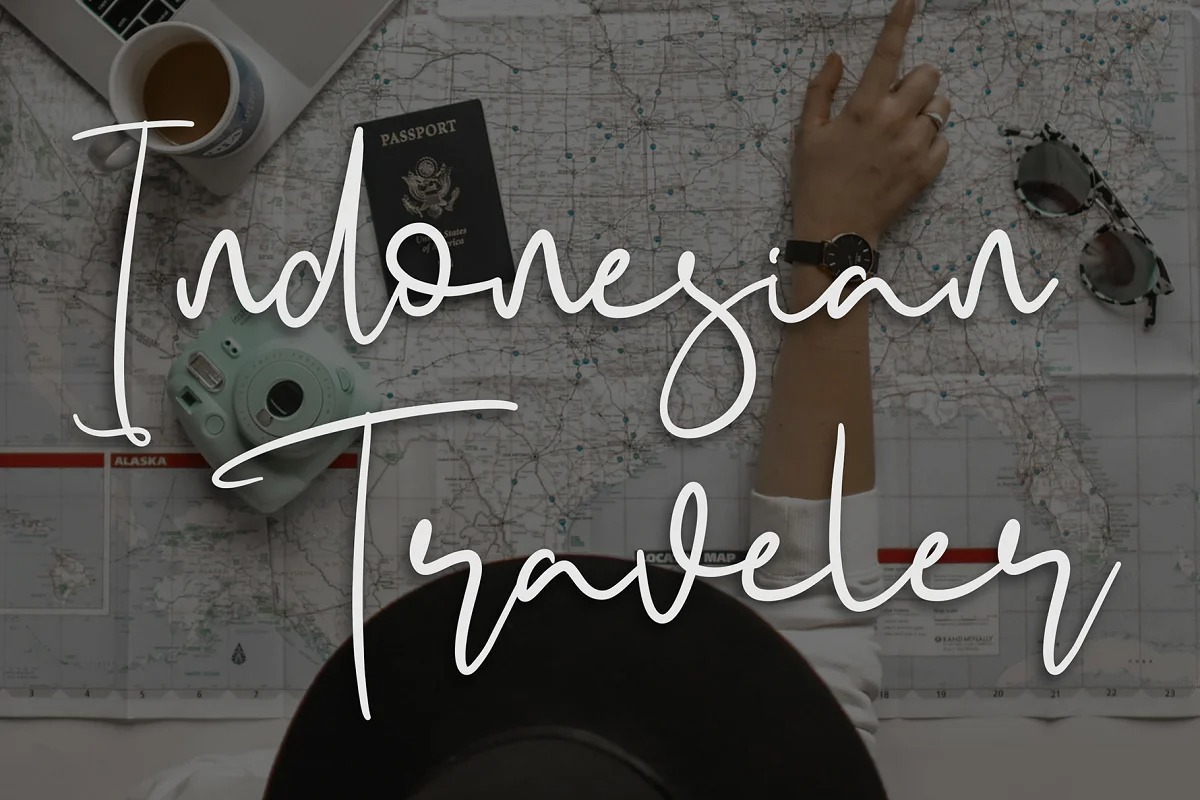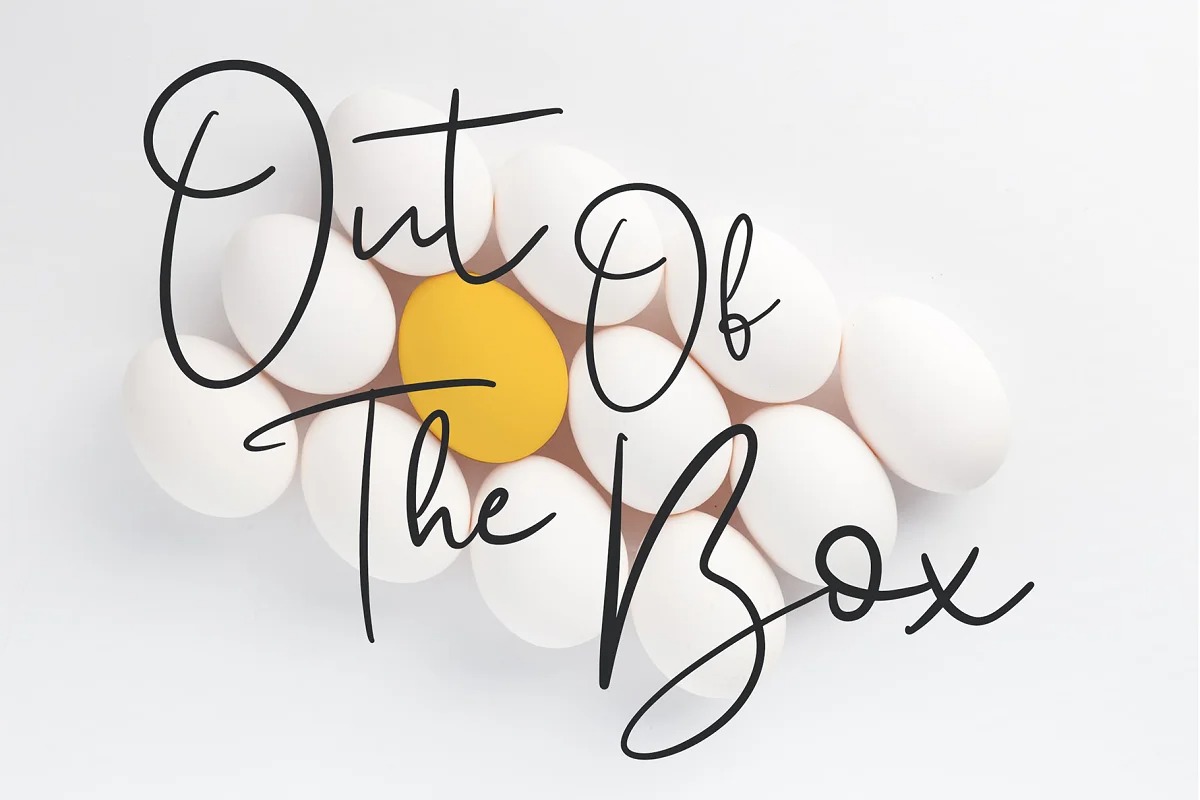
Asmira Font
Asmira Handwritten Font
It’s a new fresh handmade calligraphy font from designer Formatika Studio. With high contrast stroke, slanted and fun character with a bit of ligatures. To give you an extra creative work. This font is good for logo design, Social media, Movie Titles, Books Titles, a short text even a long text letter and good for your secondary text font with sans or serif. Make a stunning work with Soulsteps font.